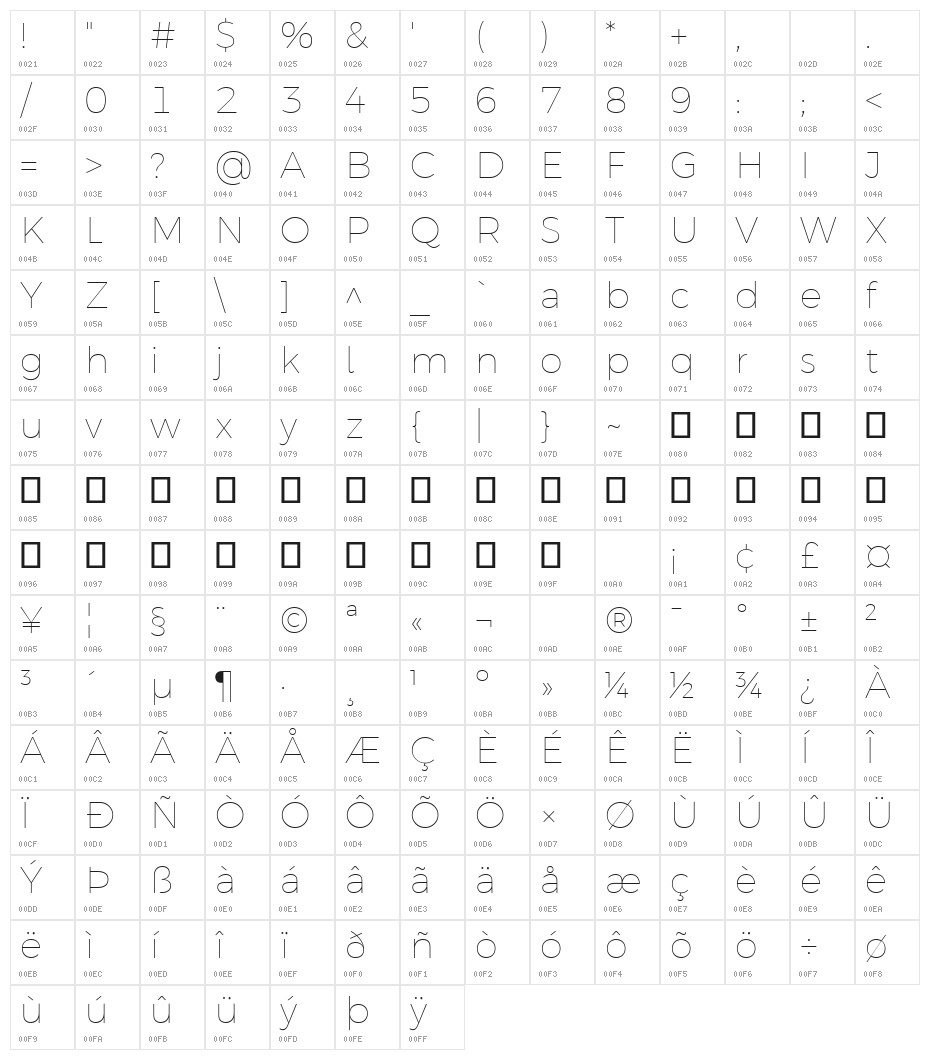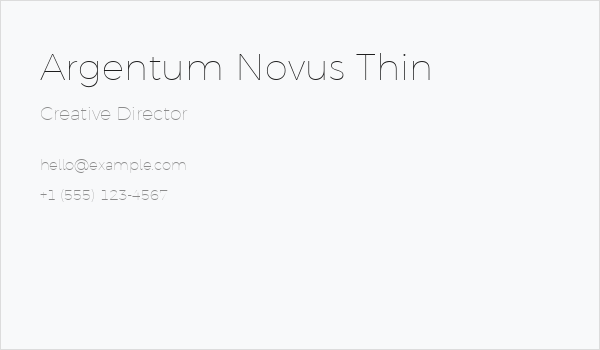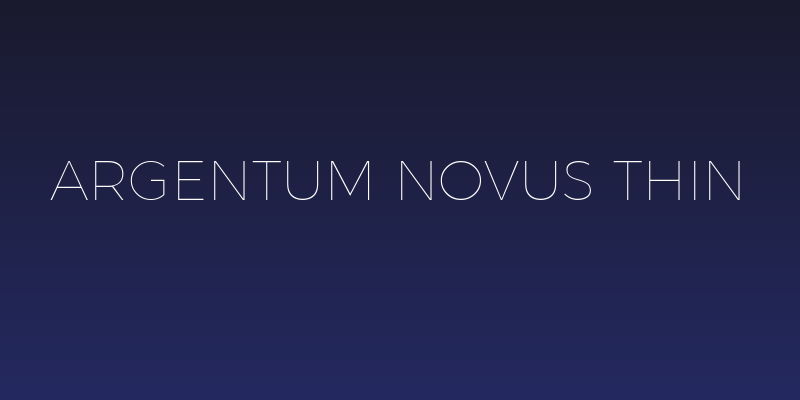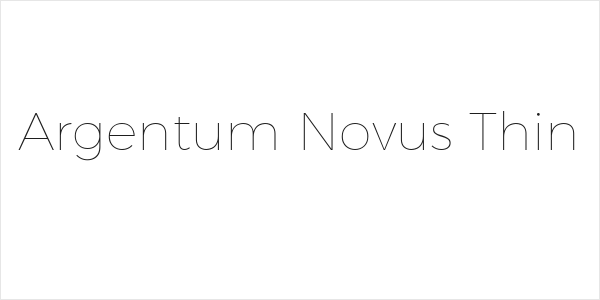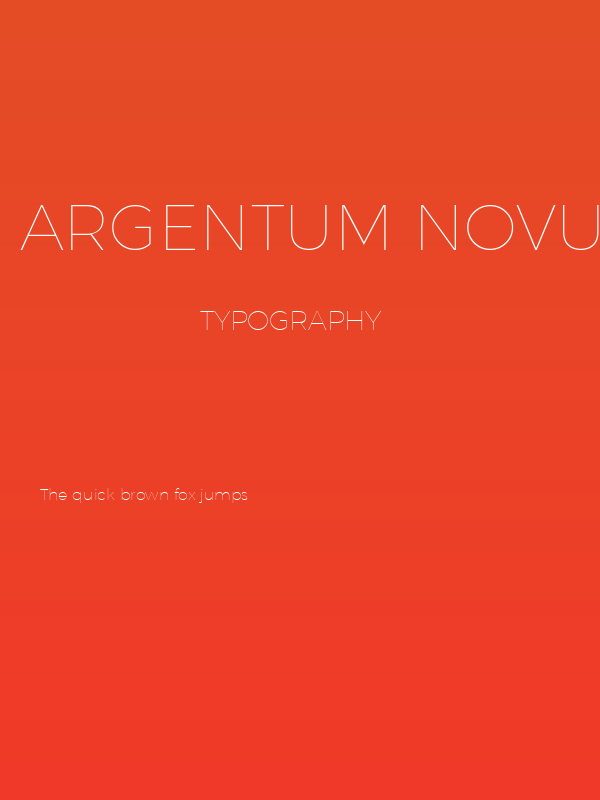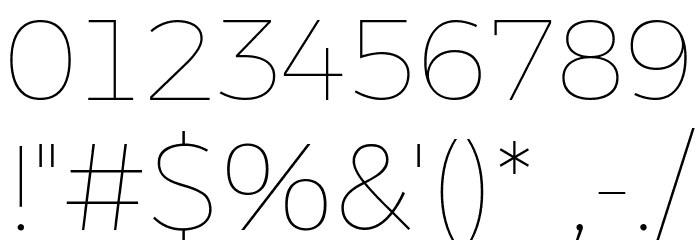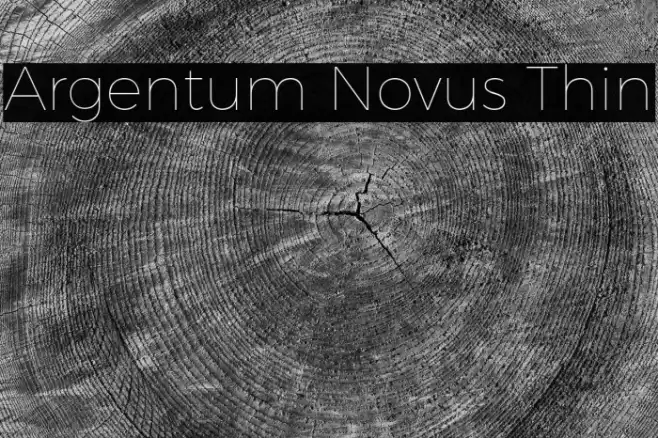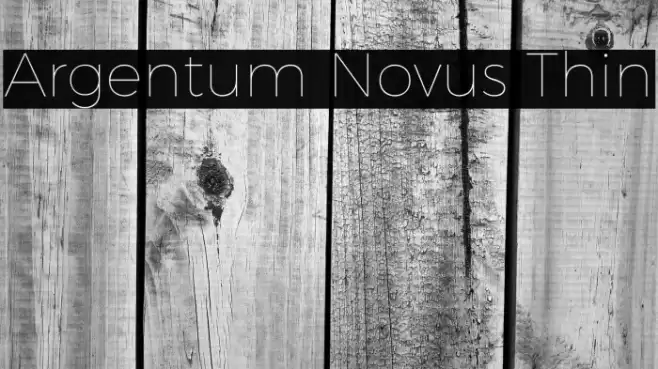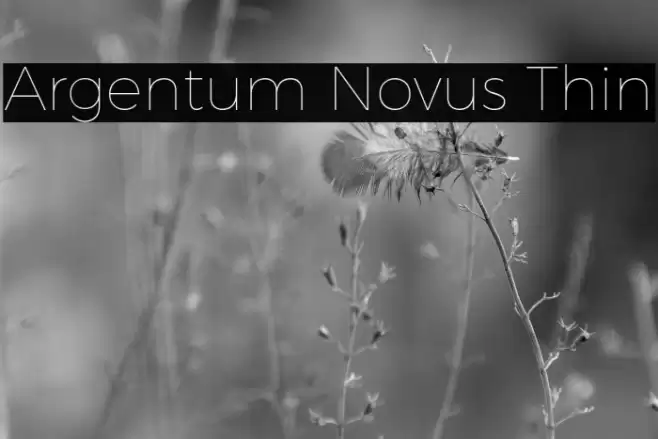
Argentum Novus Thin Font
✎ Sans Serif
Argentum Novus Thin Description
This font features a sleek and modern design with thin, clean lines that convey a sense of elegance and simplicity. The characters are evenly spaced, providing a balanced and harmonious appearance. The uppercase and lowercase letters maintain a consistent style, with smooth curves and straight lines that enhance readability. The numerals and special characters are designed to match the overall aesthetic, ensuring a cohesive look across all text elements. This font is ideal for projects that require a contemporary and minimalist touch, offering versatility and clarity.
| Use Case | Headlines, Body text, Logos |
| Proposed Projects | Ideal for branding, editorial design, websites, and minimalist graphic design projects. |